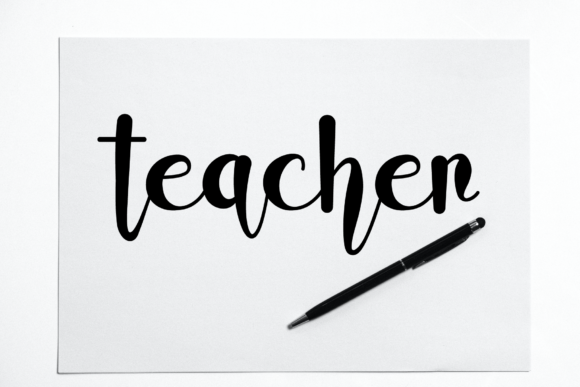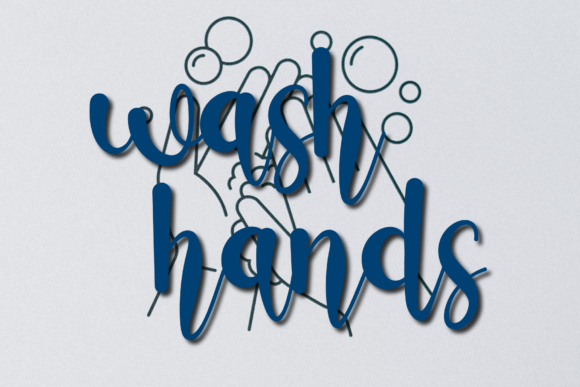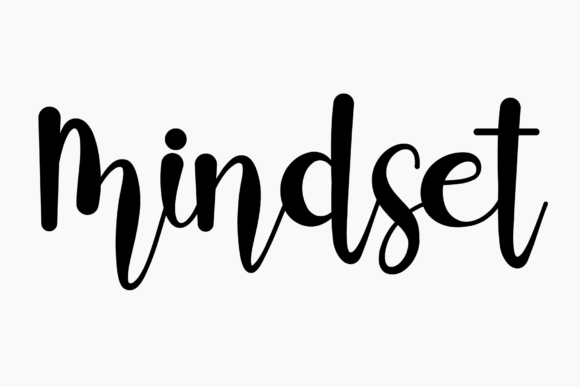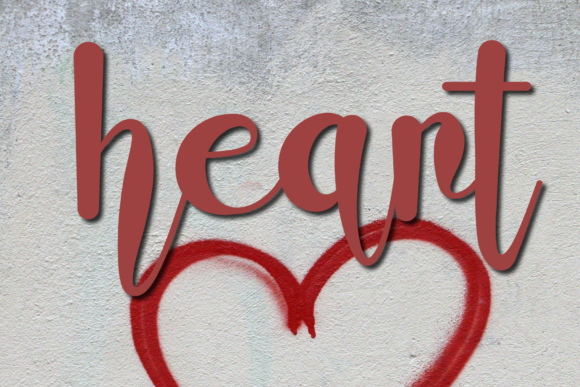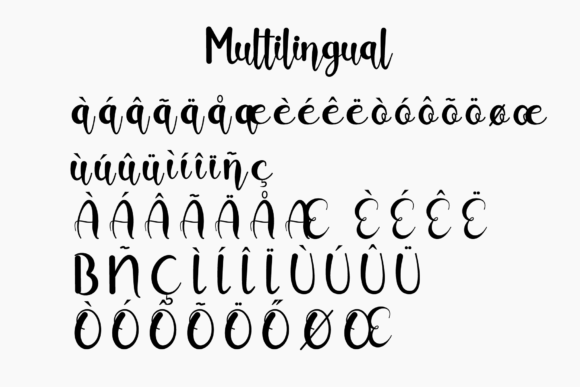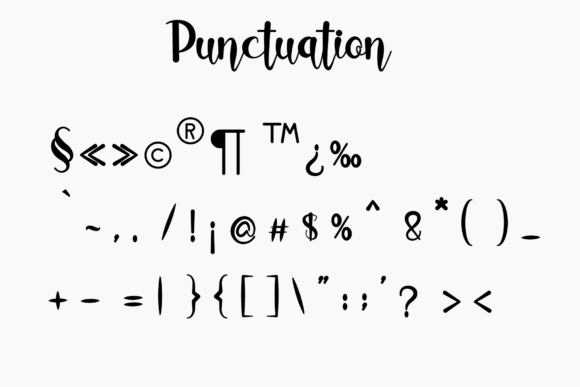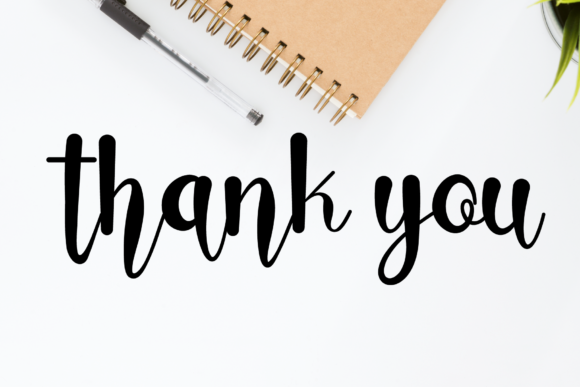
Mauload Font
About Mauload Font
Mauload is a lovely, elegant and unique script font. Fall for its cool and relaxed style and use it to create trendy cards, beautiful stationary art, eye-catching social media posts, and much more!